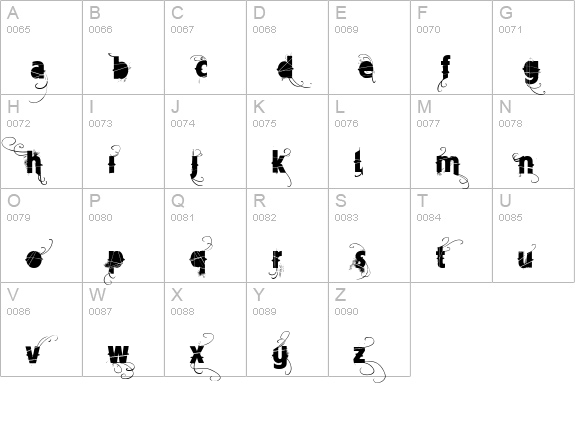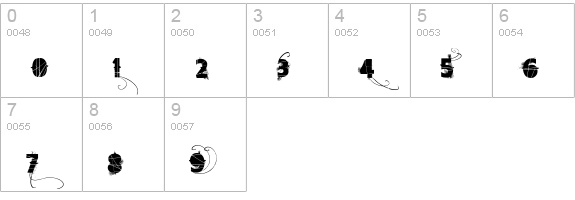
Vtks Mercearia font is a charming and versatile typeface that brings a touch of creativity to your designs. With its handcrafted style and unique letter shapes, this font is perfect for adding a playful and friendly vibe to any project. Whether you're designing posters, logos, invitations, or any other creative work, Vtks Mercearia is sure to make your text stand out. The best part? Vtks Mercearia is available for free download at FontsMarket.com, making it easily accessible for all designers looking to add a fresh and distinctive look to their projects. Don't miss out on this wonderful font that combines style and personality in one beautiful package. Download Vtks Mercearia today and elevate your designs with its playful charm and artistic flair.